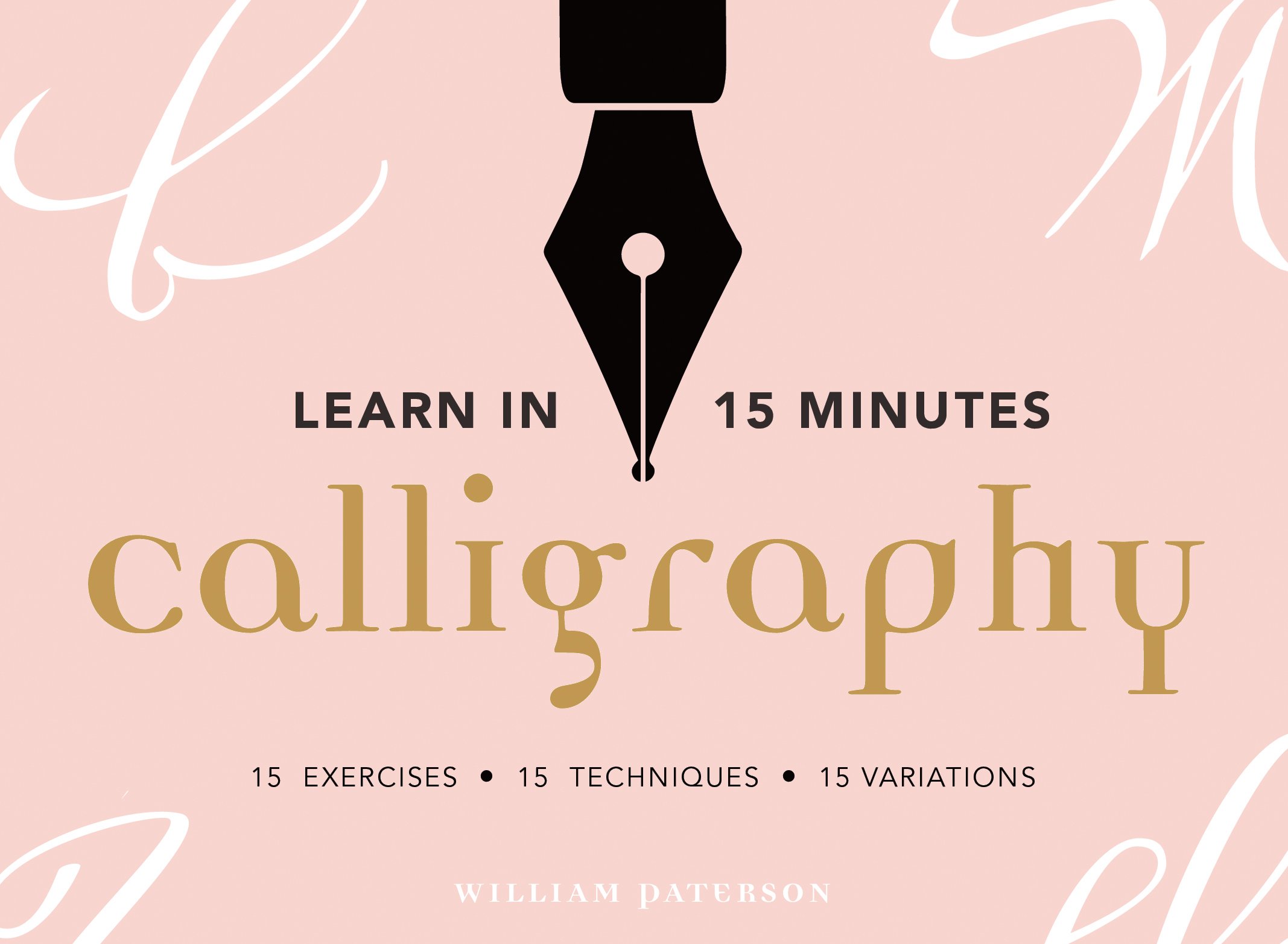
Learn in 15 Minutes: Calligraphy: 15 exercises, 15 letterforms, 15 variations
The self-education trend is booming and more adults than ever are teaching themselves core art and design skills. This Learn in 15 book is the perfect companion for these curious souls; breaking each skill down into 45 bite-sized tutorials so that you can hone your abilities without a huge daily investment of time. YouTuber and lettering guru Will Paterson offers instructional content that is clear, concise, and fun to follow. Paired with beautiful inspirational examples of modern calligraphy at it's best, this book comes in a handy, dip-in-and-out format, packing more than 12 hours of teaching into simple and succinct 15-minute long tutorials.